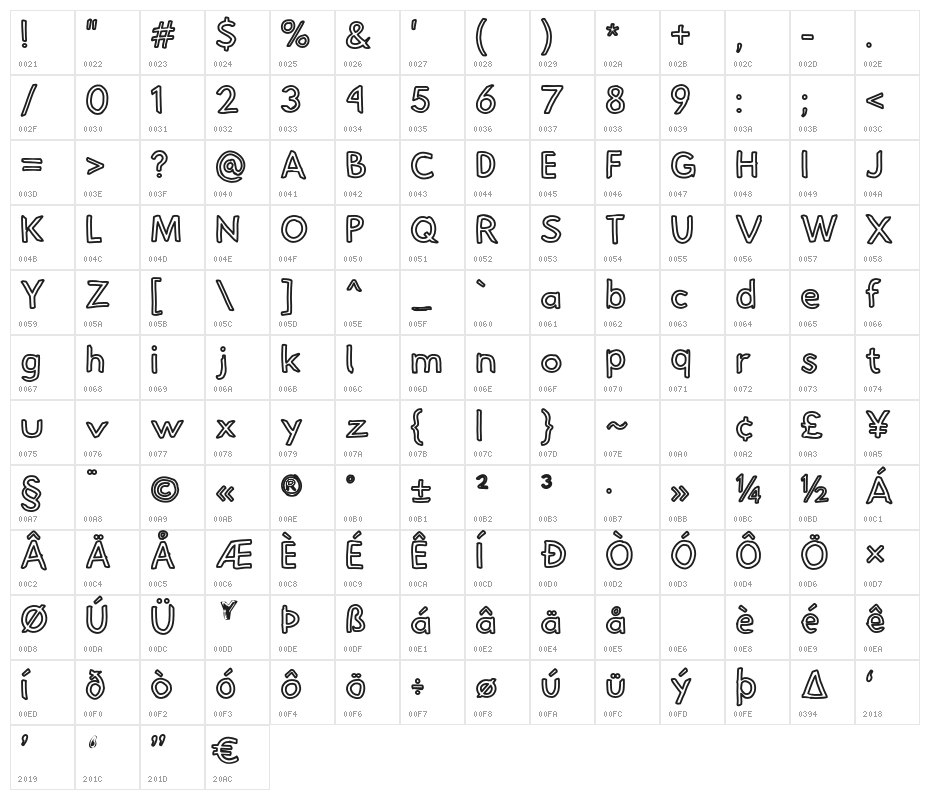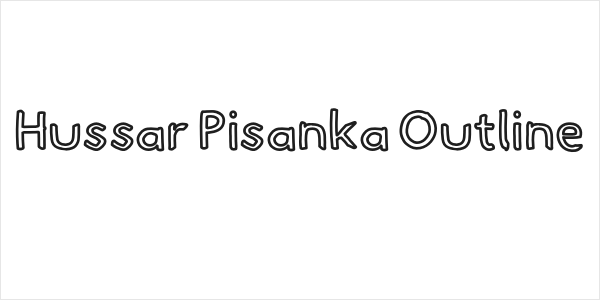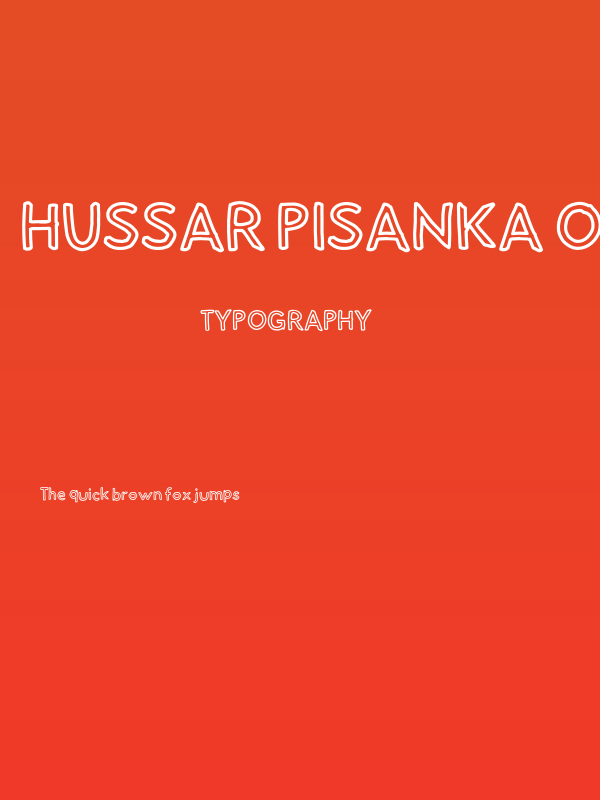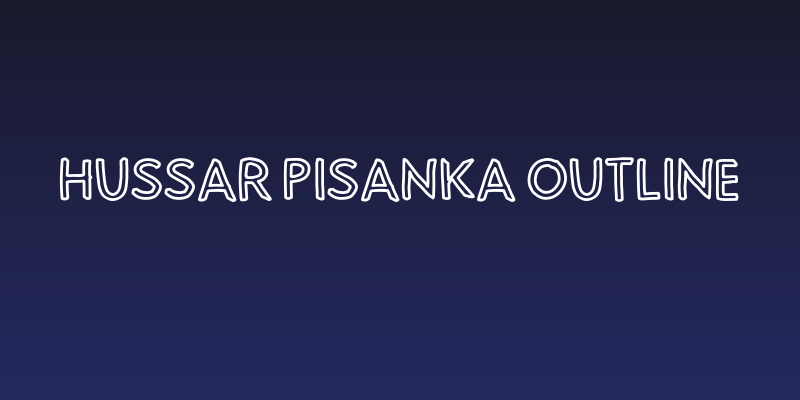
Hussar Pisanka Outline Font
Hussar Pisanka Outline Description
This font features a playful and bold outline style, giving each character a distinct and eye-catching appearance. The letters are rounded with a consistent thickness, creating a uniform look across both uppercase and lowercase characters. The numbers and special characters maintain the same playful outline, ensuring a cohesive design throughout. This font's unique style makes it ideal for creative projects where a fun and engaging typeface is desired. Its clear and legible design ensures readability while adding a touch of whimsy.
| Overall Style | Playful, Modern |
| Proposed Projects | Ideal for children's books, playful branding, posters, and creative invitations. |